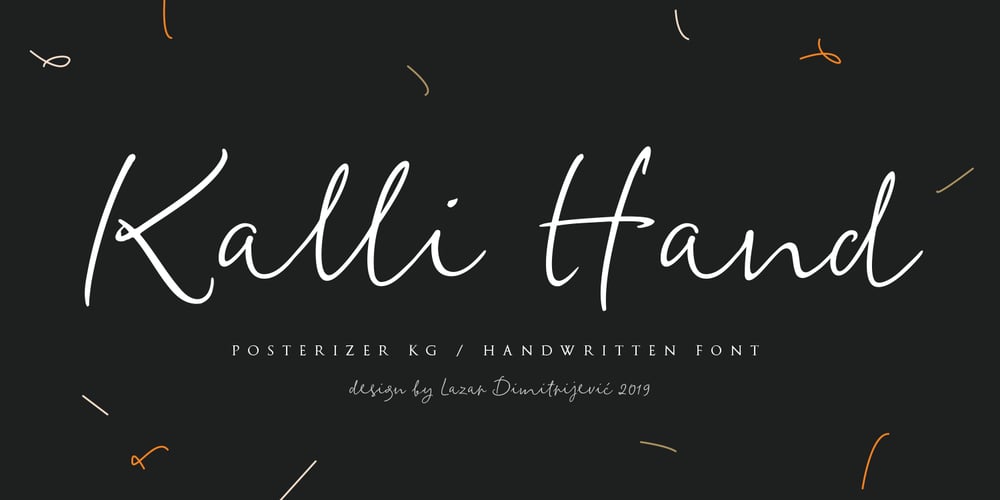
Kalli Hand Font Family was designed by Lazar Dimitrijević and published by Posterizer KG. Kalli Hand contains 1 styles and family package options. Basically, Kalli Hand is a fast dry handwritten script, with a naturally pen-lettered look. Default character set contains most of Latin Pro accent letters and Serbian Cyrillic characters. Kalli Hand comes with a complete set of lowercase and uppercase OpenType Contextual Alternates, that includes all diacritic (accent) letters and Russian Cyrillic (instead of Serbian). For more authentic custom-feel text, there are Stylistic Alternates (with a few bonus ornaments), Standard and Discretionary Ligatures. Perfectly fit for branding, logo, magazine headlines, wedding things, greeting cards, fashion, lookbook, mood board, presentation, and other naturally beautiful unperfect things that need a casual look.